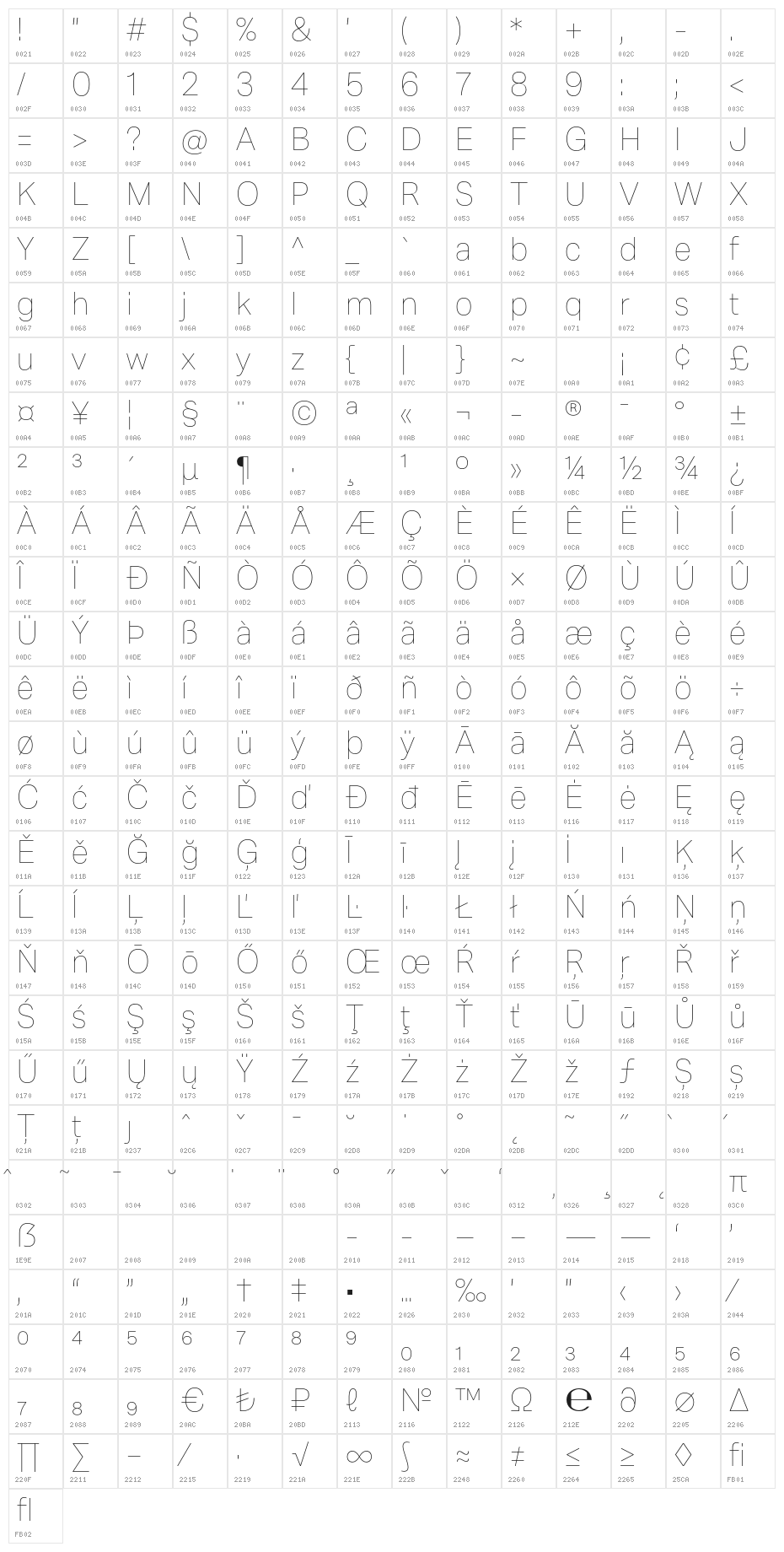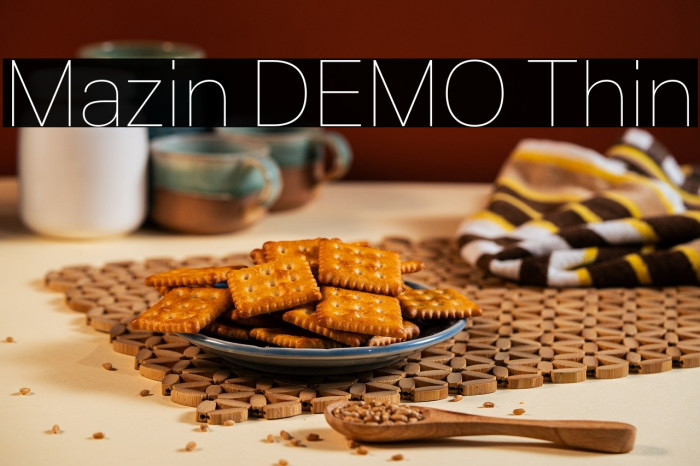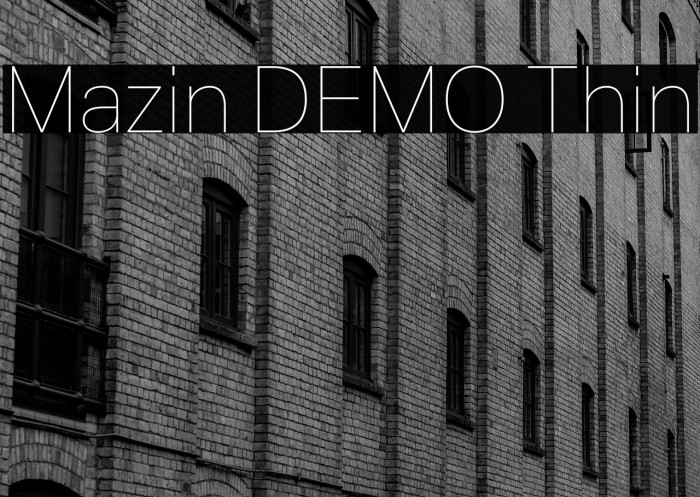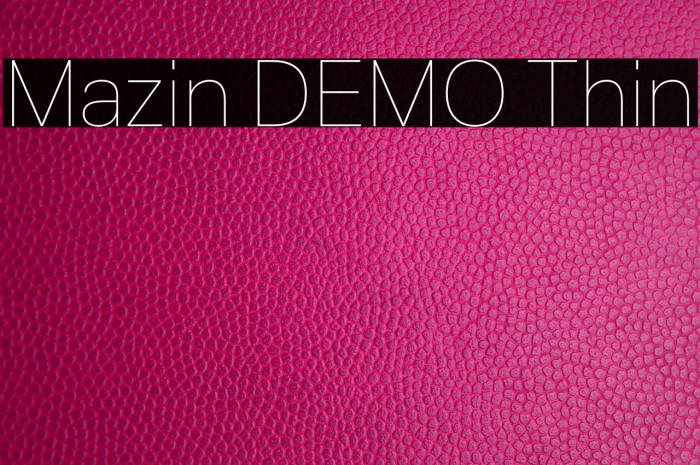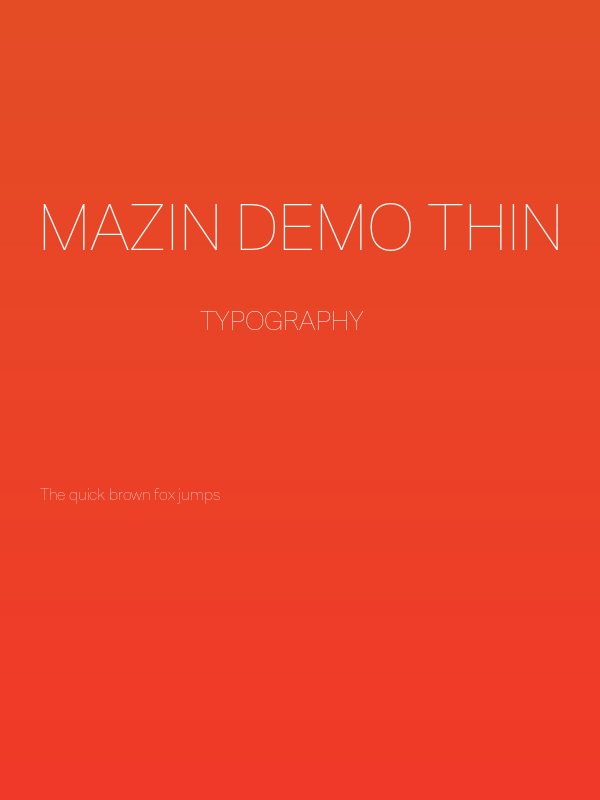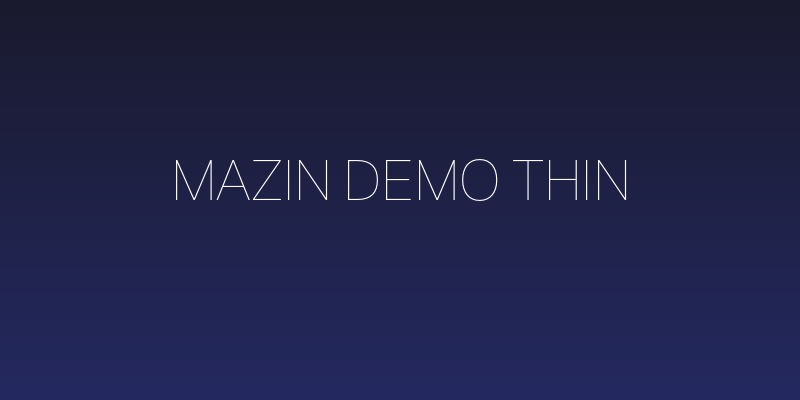
Mazin DEMO Thin Font
Mazin DEMO Thin Description
This font features a sleek and modern design with clean, thin lines that create an elegant and minimalist appearance. The characters are evenly spaced, contributing to a balanced and harmonious look. Its simplicity and clarity make it highly legible, even at smaller sizes. The font's geometric shapes and uniform stroke widths give it a contemporary feel, suitable for a wide range of design applications. The uppercase and lowercase letters maintain a consistent style, while the numerals and special characters complement the overall aesthetic seamlessly.